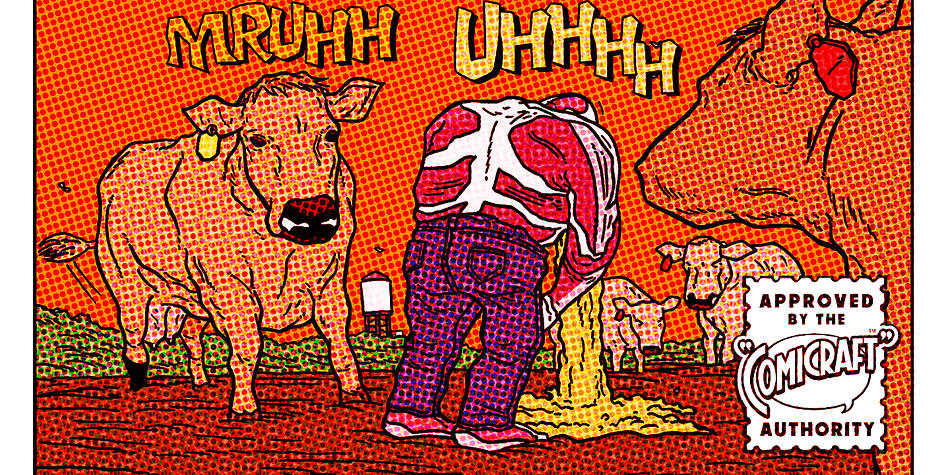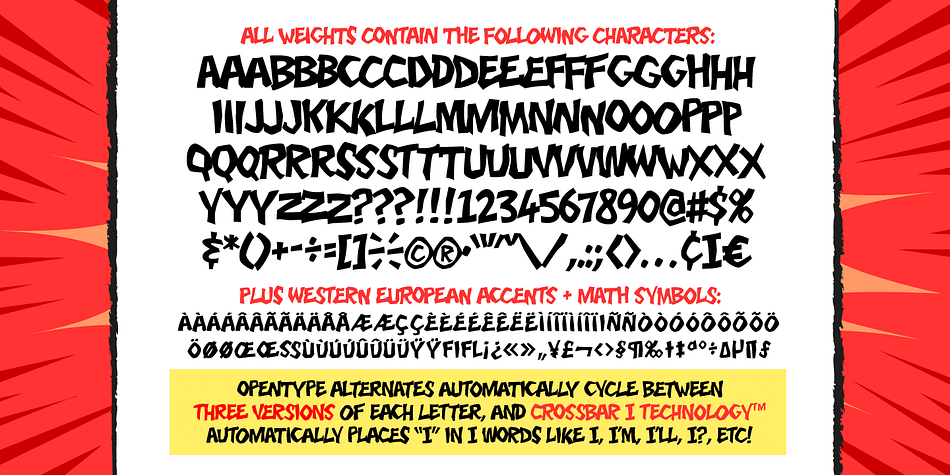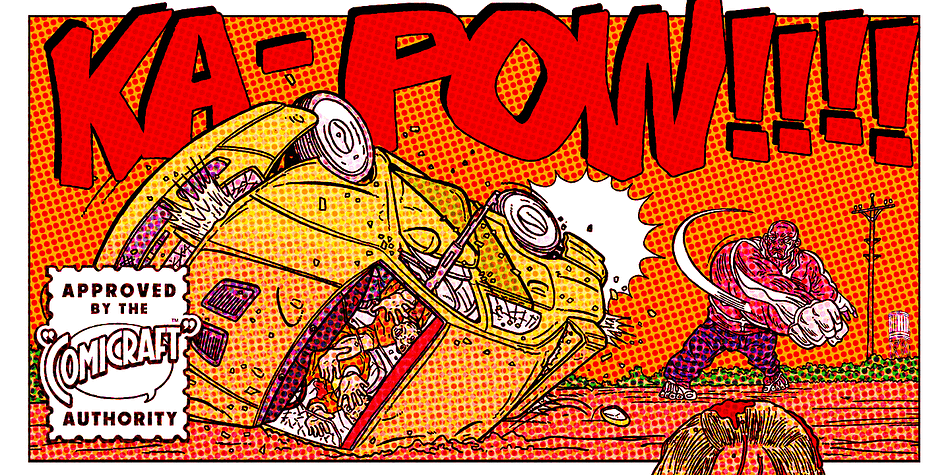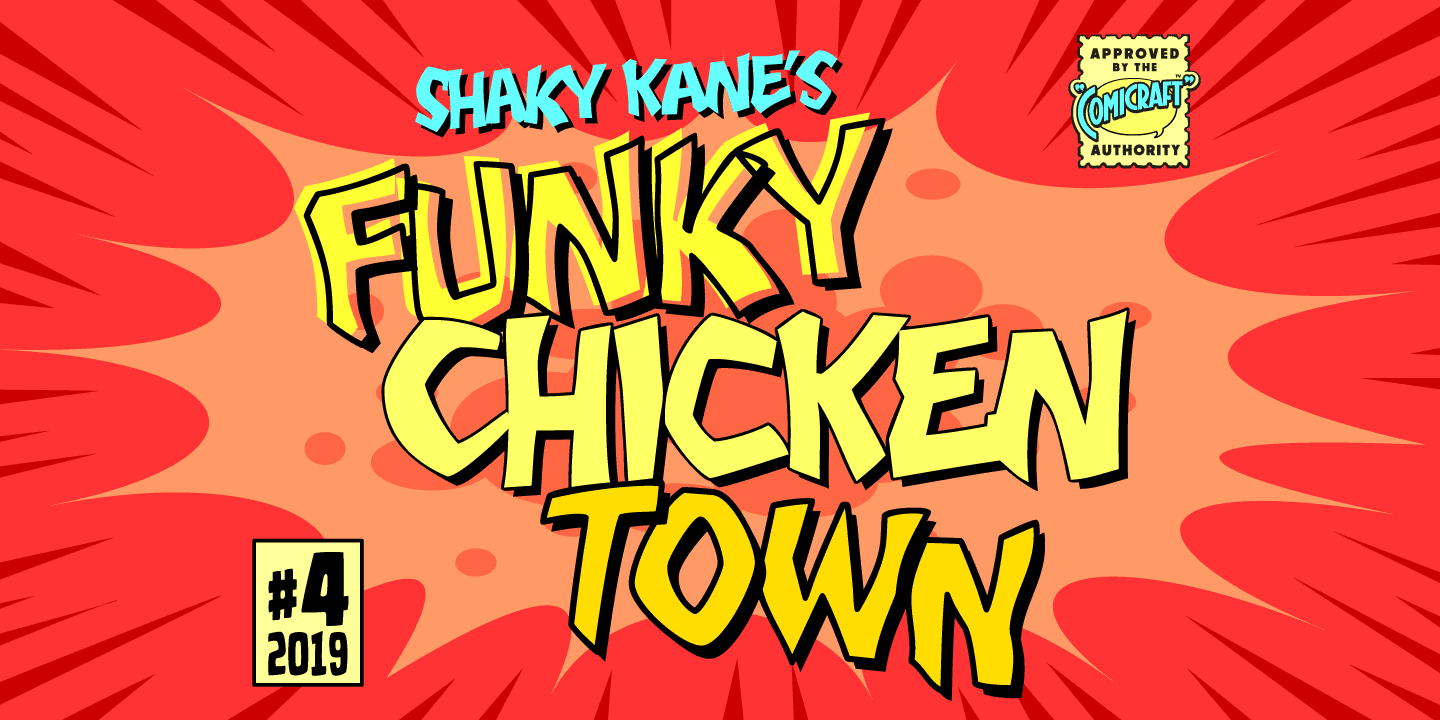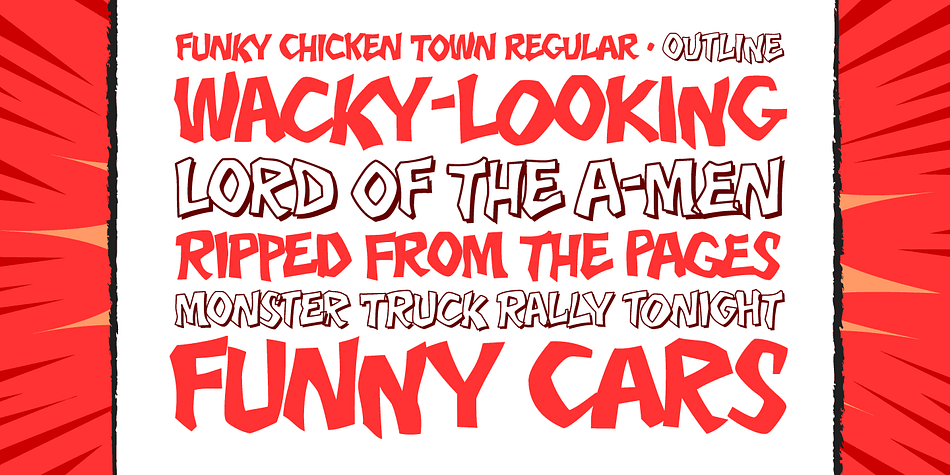
Designed by John Roshell, Funky Chicken Town is a comic, hand display and novelty font family. This typeface has two styles and was published by Comicraft.
Ripped from the pages of the Art and Crazy Paving Lettering of The Lord of THE BEEF, SHAKY KANE, Comicraft Proudly Presents a font so wacky, so snakey, so achy-breaky, we could only call it FUNKY CHICKEN TOWN. And if that isn’t wacky ENOUGH — FUNKY CHICKEN TOWN features three — count ‘em — THREE versions of each letter!!! Opentype will automatically cycle between the alternates of each letter.
FUNKY CHICKEN TOWN features solid and outline weights which can be layered in any number of funky ways, and features Comicraft’s trailblazing — often imitated never equalled—Crossbar I Technology™ which automatically places capital “I” in i words like i, I’m, I’ll and I, and removes them from words like Chicken and Comics!
Two weights (Solid & Outline) with alternate uppercase characters, Western European international characters & Crossbar I Technology